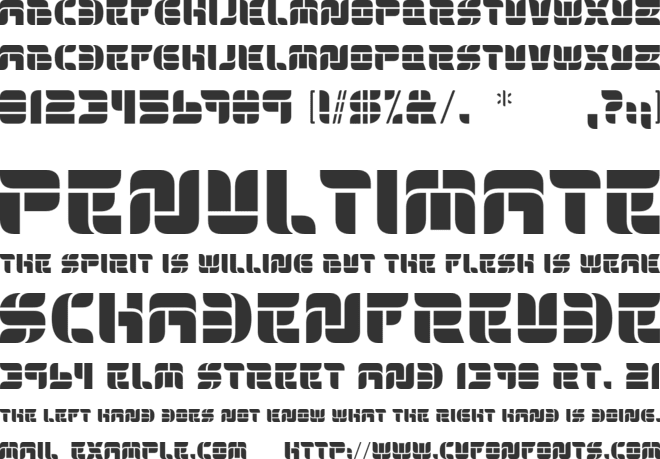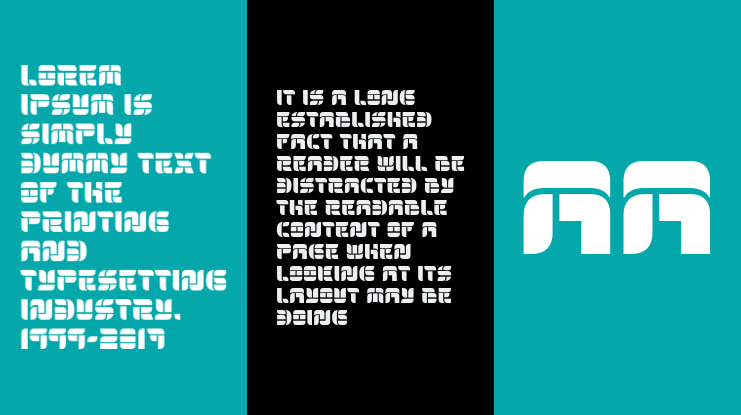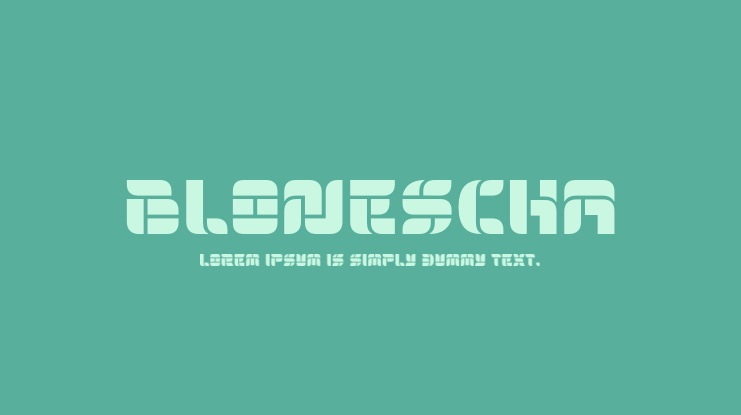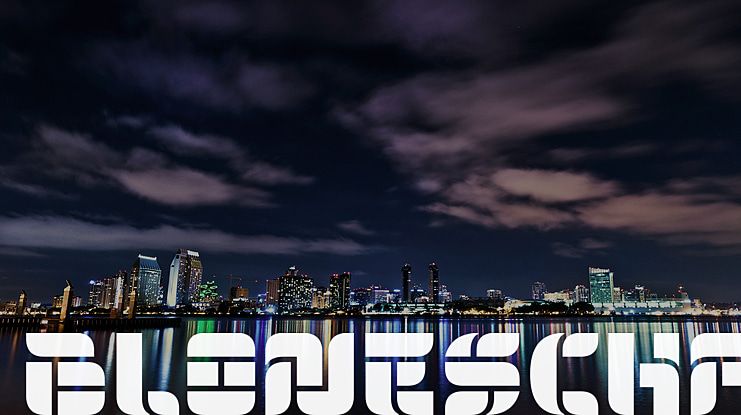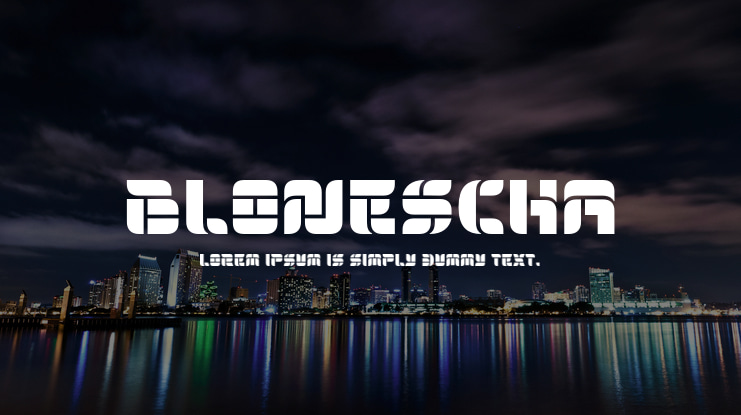
BLONESCHA Font
Philipp Kampling
This font was especially created for the analogue use as a stencil with a spraycan. It was developed for a street-art-project. To find out more about the project and myself, please visit http://www.philipp-kampling.de.